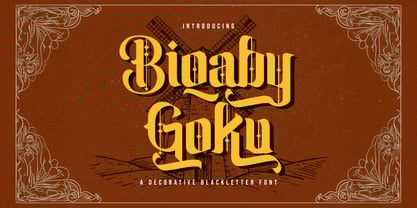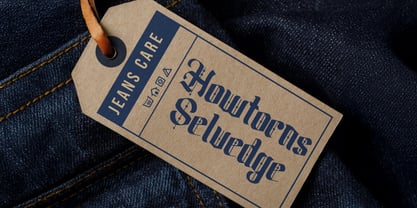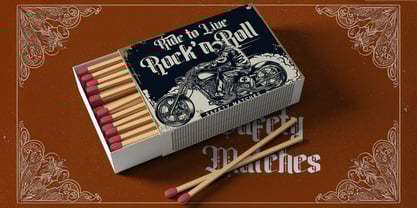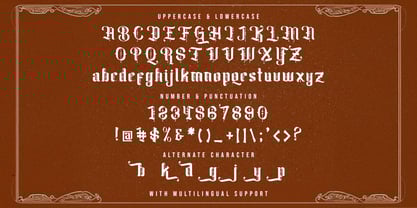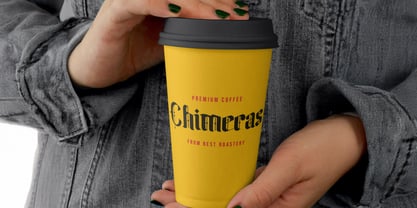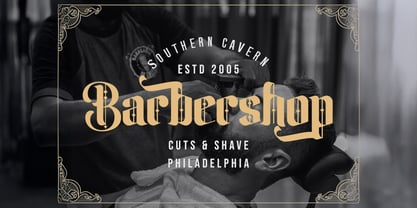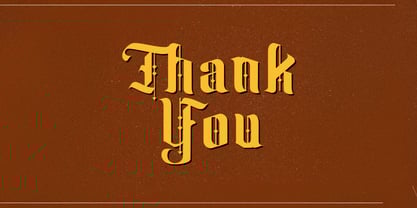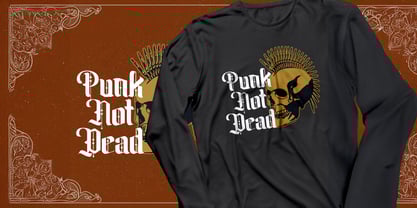
The Biqabygoku Font Family was designed by Virgiawan Listanto and published by Stringlabs Creative Studio. Biqabygoku contains 1 styles. More about this family
Biqaby Goku is a fierce and striking blackletter font that blends traditional gothic style with a modern edge. With sharp angles, bold strokes, and medieval flair, this font is perfect for projects that demand power, attitude, and visual impact.